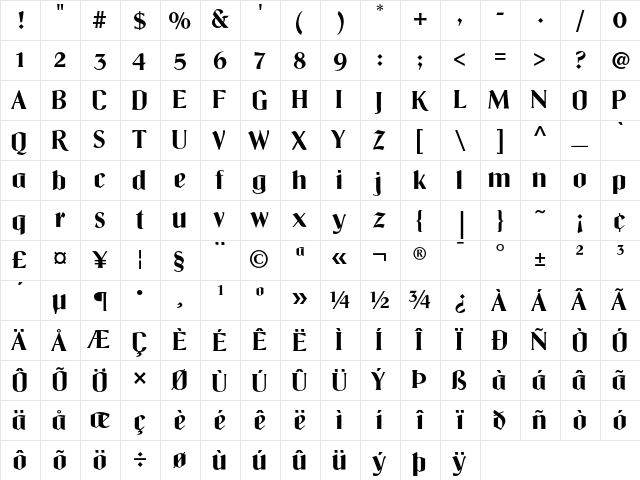
Airam LT Std Regular
Foundry: Linotype Library GmbH
Designer: Maria Martina Schmitt
Design Context for Airam LT Std
Airam LT Std is a composed and adaptable typeface that performs quietly and consistently across a wide range of design contexts. Its slender proportions lend an understated elegance to any composition.